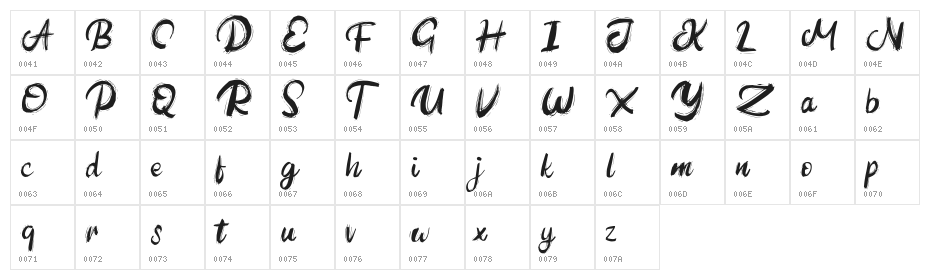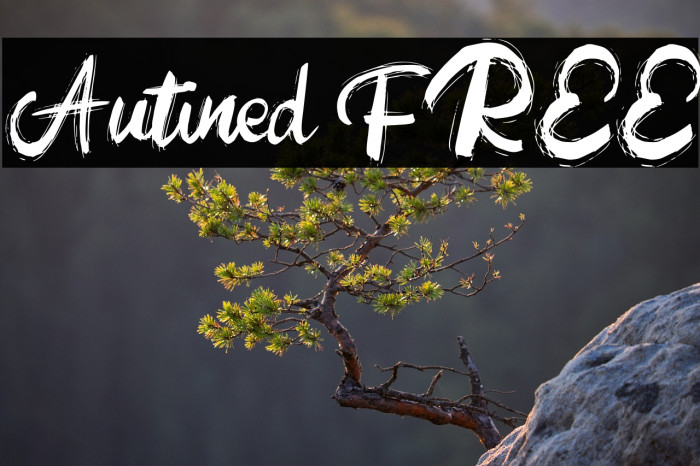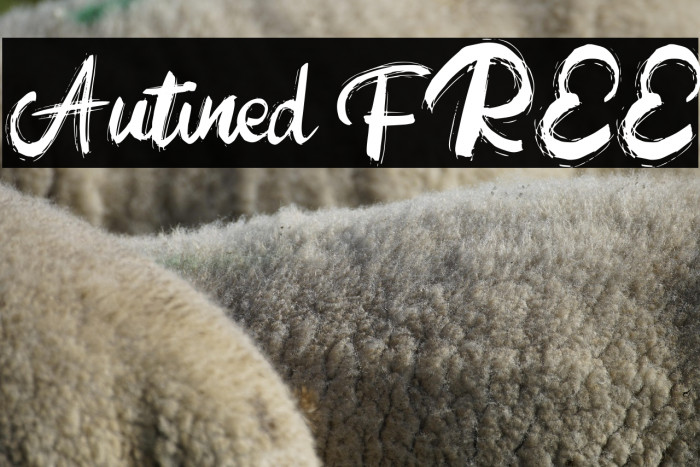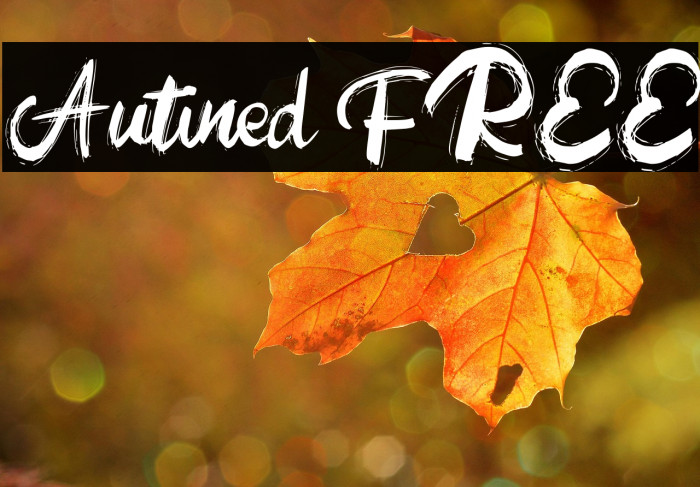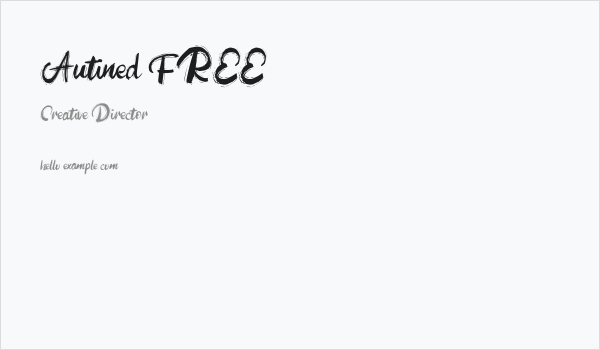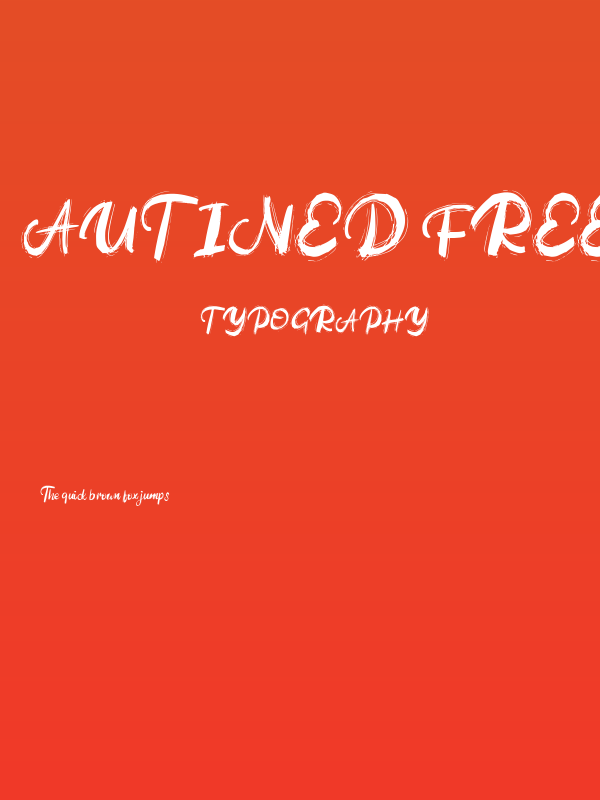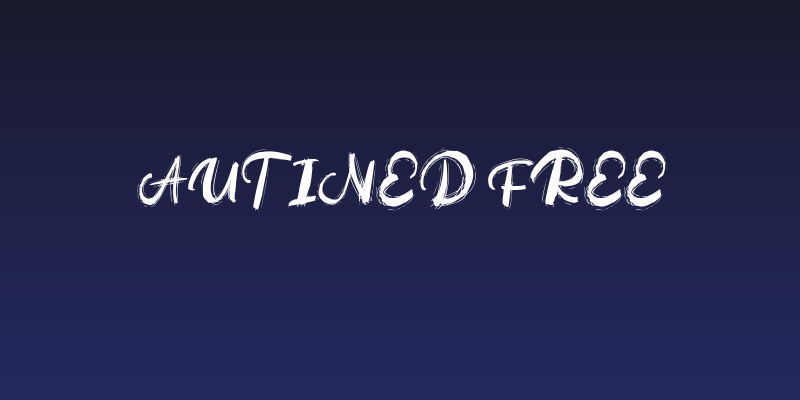
Autined FREE Font
Autined FREE Description
This font features a dynamic and expressive brush style, characterized by bold, sweeping strokes that convey a sense of energy and movement. The letters have a hand-painted appearance, with varying thicknesses that add to the artistic flair. The uppercase and lowercase letters maintain a consistent style, with the uppercase being slightly more pronounced. The font includes numbers and a selection of special characters, all designed to complement the overall aesthetic. Its unique style makes it stand out, ideal for projects that require a personal and creative touch.
| Proposed Projects | Ideal for creative projects such as posters, branding, packaging, and social media graphics that require a bold and artistic touch. |